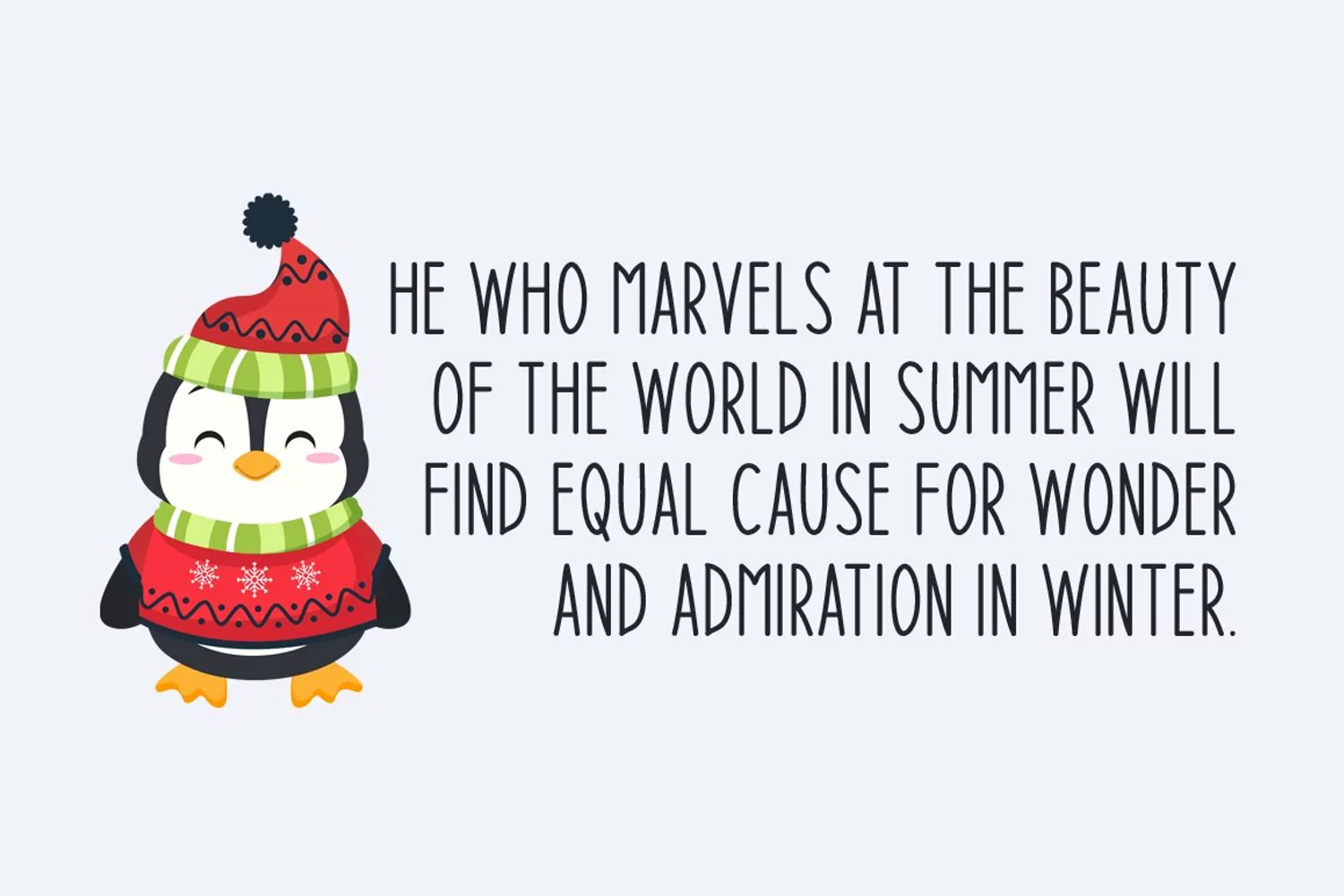
Wintery Christmas
Introducing Winter Insight!
Winter Insight is a brand new handwritten font. Winter Insight is perfectly suited for stationery, logos, t-shirt, paper, print design, website header, photo frame, flyer, music cover, poster, image slider, and much more.